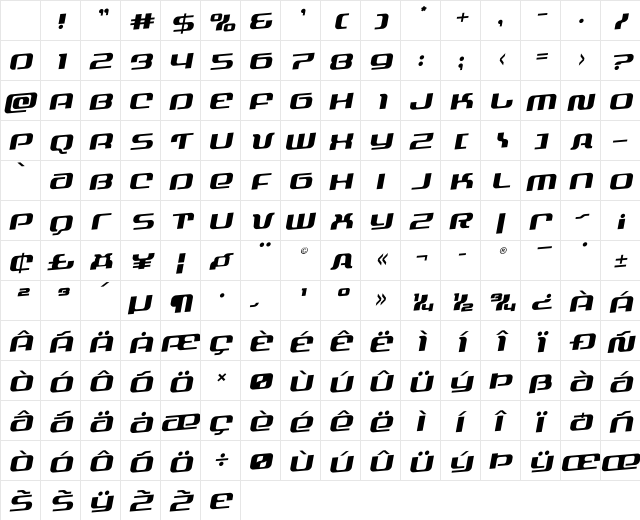
Complete Yeoman Jack Rotalic Regular glyph index. Displaying only characters natively supported by Yeoman Jack Rotalic Regular font.
Yeoman Jack Rotalic is a composed and adaptable typeface that performs quietly and consistently across a wide range of design contexts.